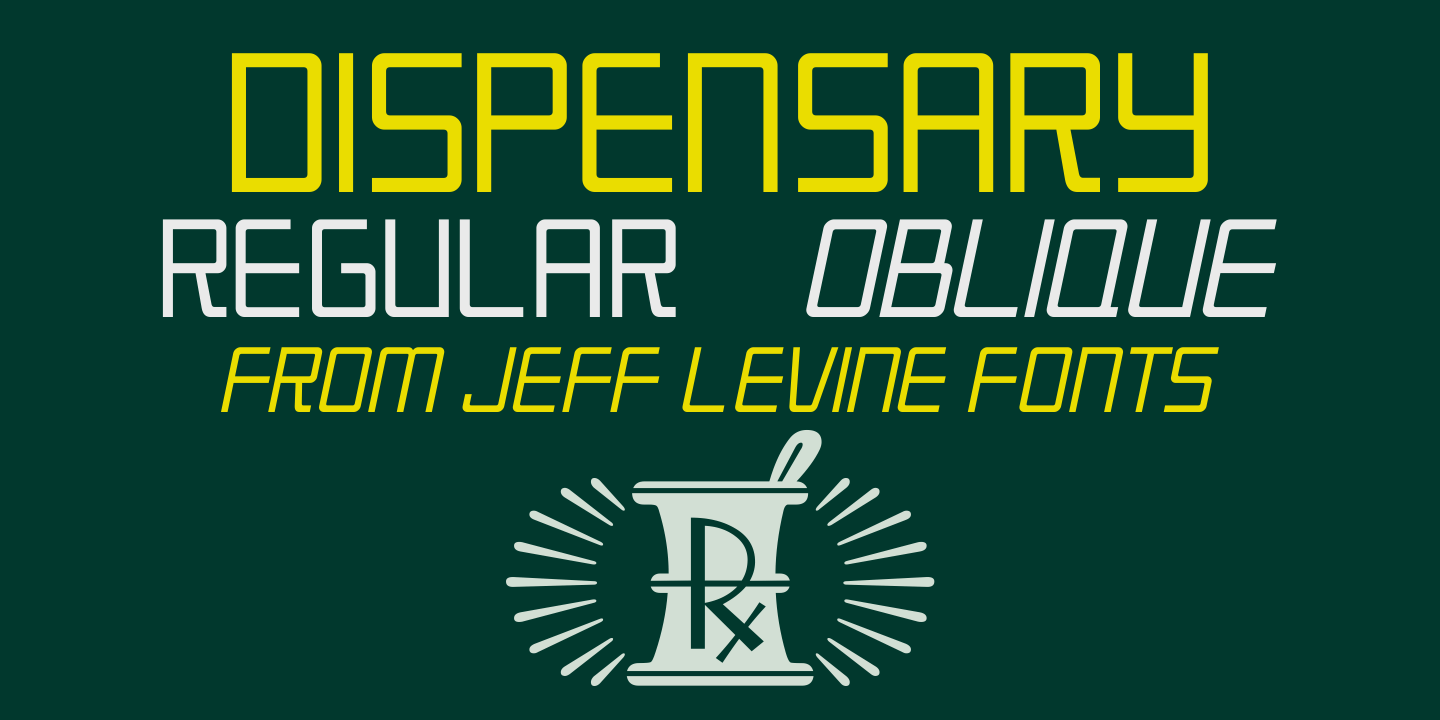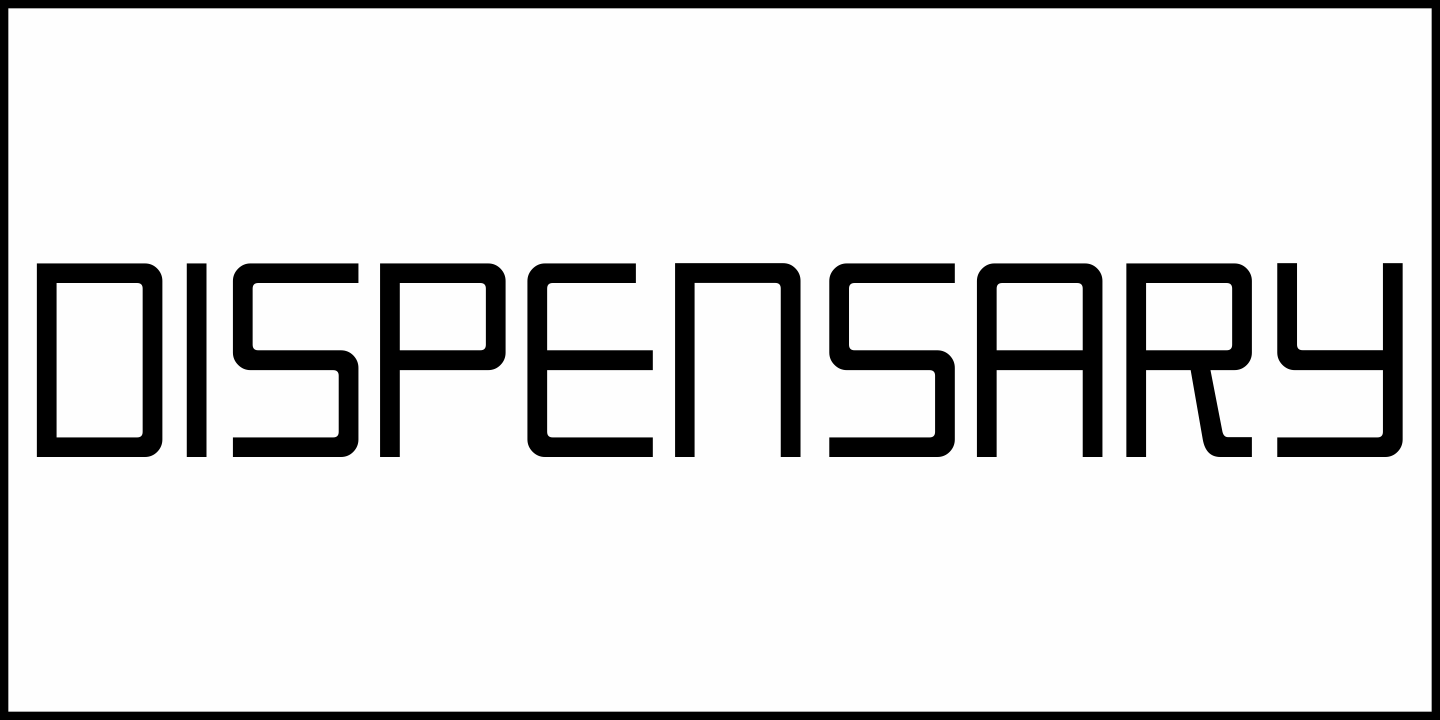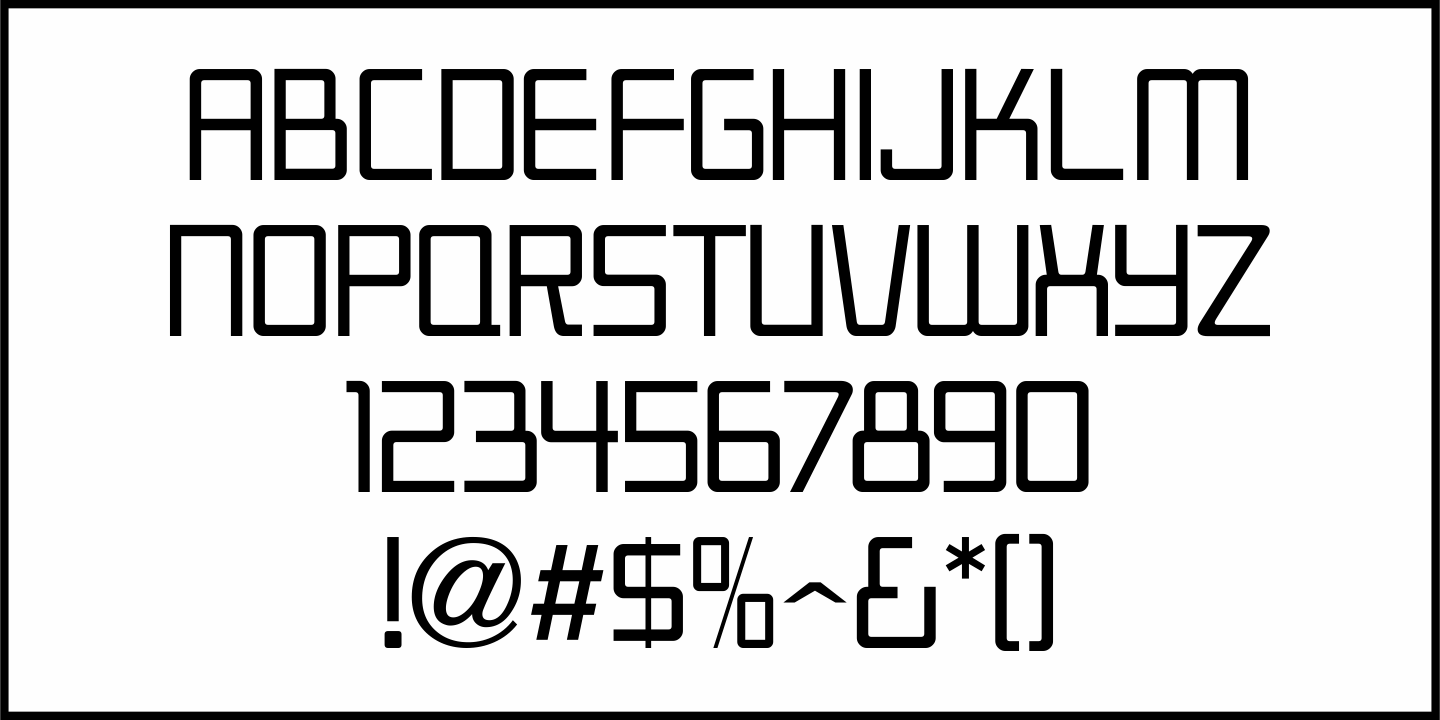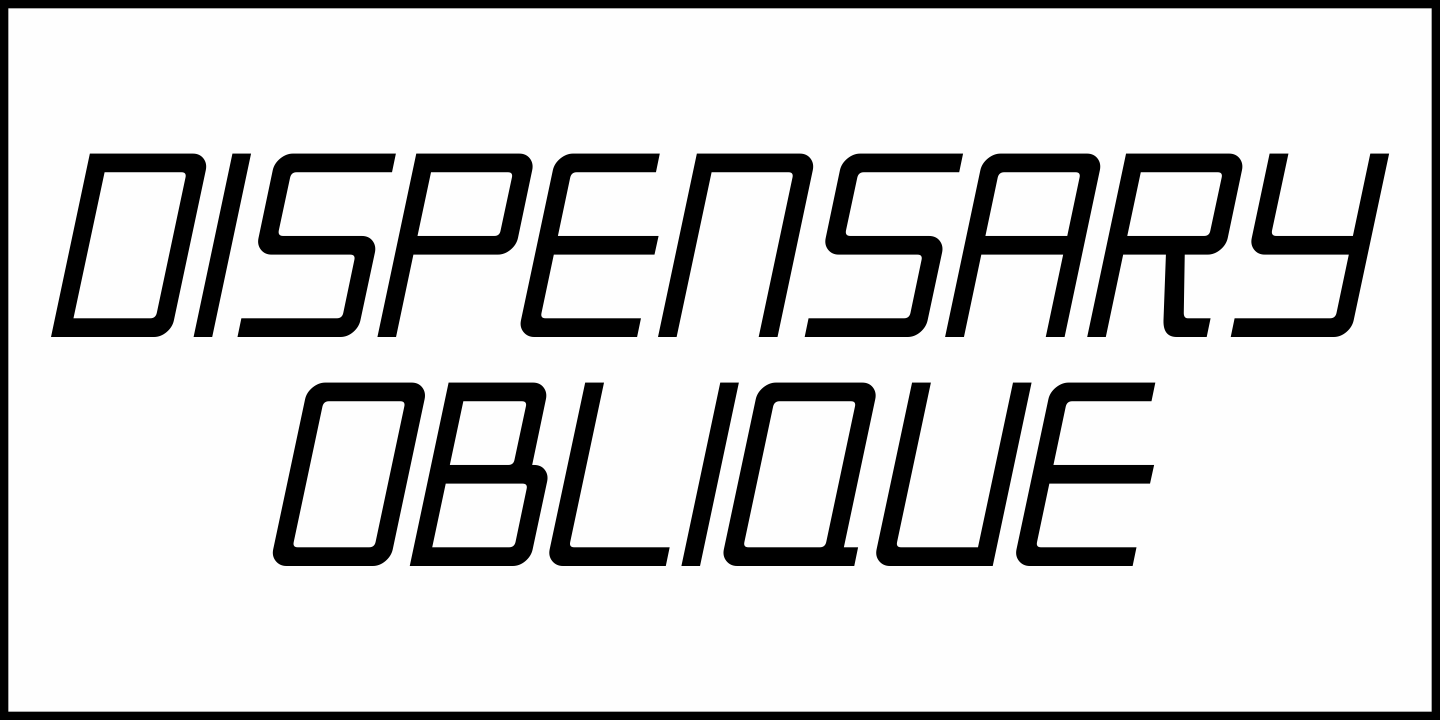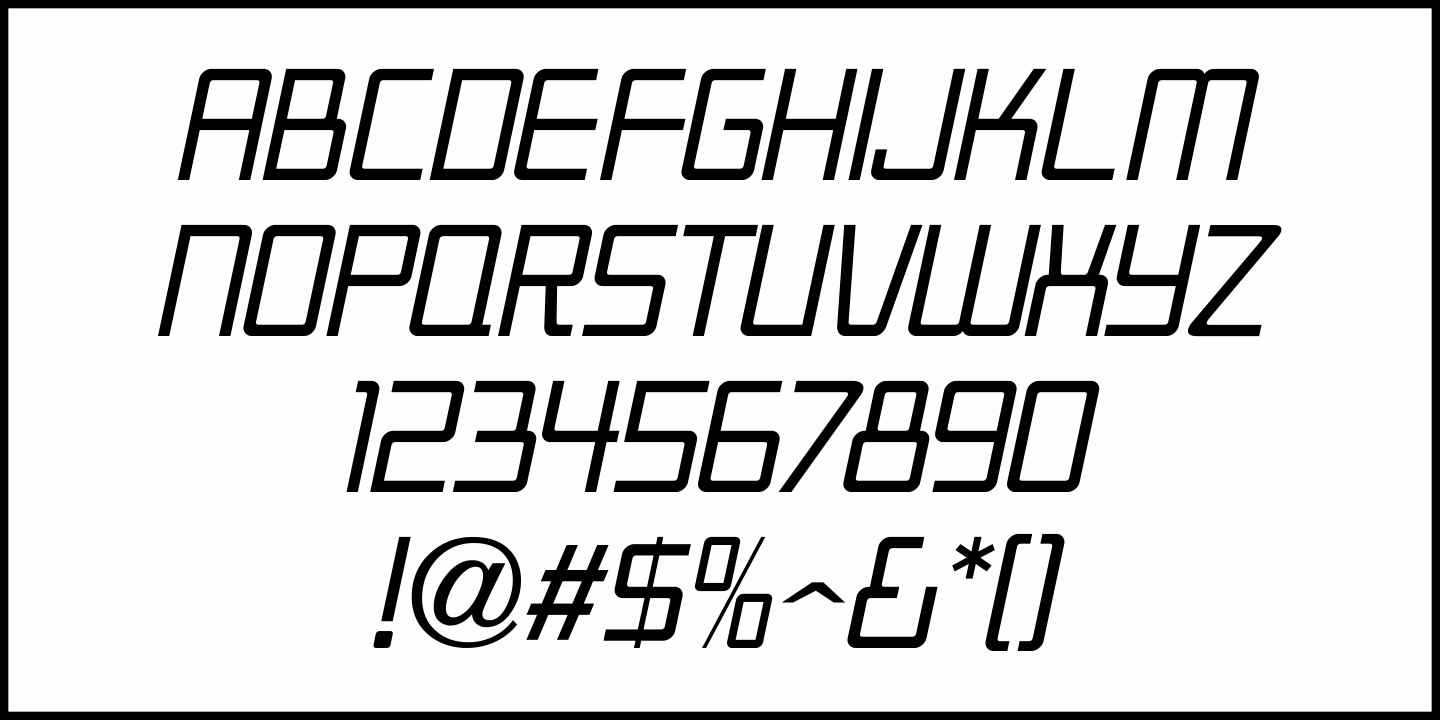
Dispensary
Vintage film footage taken while driving around San Francisco in the early-to-mid 1950s showed many business locales around the City by the Bay. At one point, the camera passes by an Owl Drug Store which had wrap-around signage in a san serif style that (with it's stylized, squared lettering) is a cross between Art Deco and the Techno designs of the 1980s.
This type design is now available as Dispensary JNL, in both regular and oblique versions.